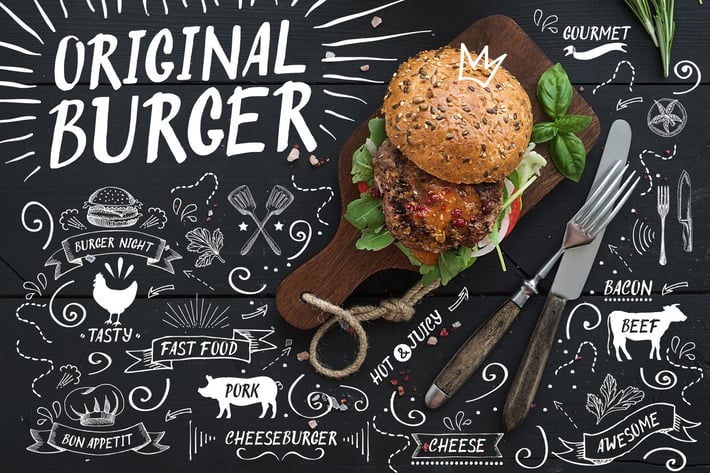
Original Burger Font
+Original Burger - a handmade font consisting of uppercase letters, punctuation and numbers. Basic Latin alphabet A-Z. Also this font comes with graphic doodle elements.